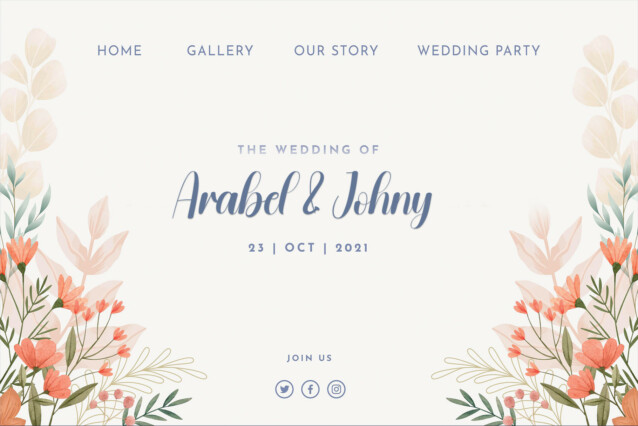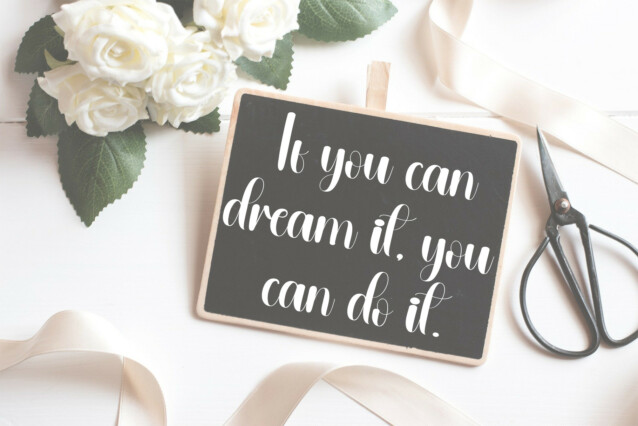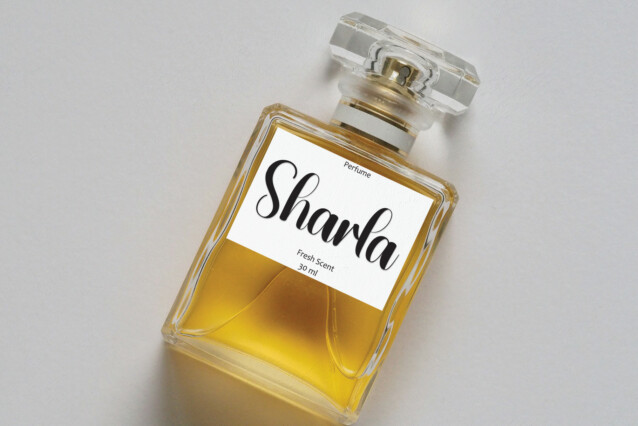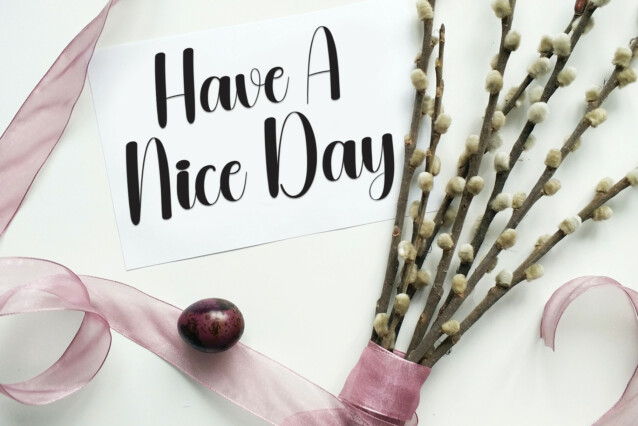
Cherry Blossoms Script Font is a sweet and friendly handwritten display font. Cute and fun, this font is ideal for writing wedding invitations, cards, or any other design that might need a playful touch!